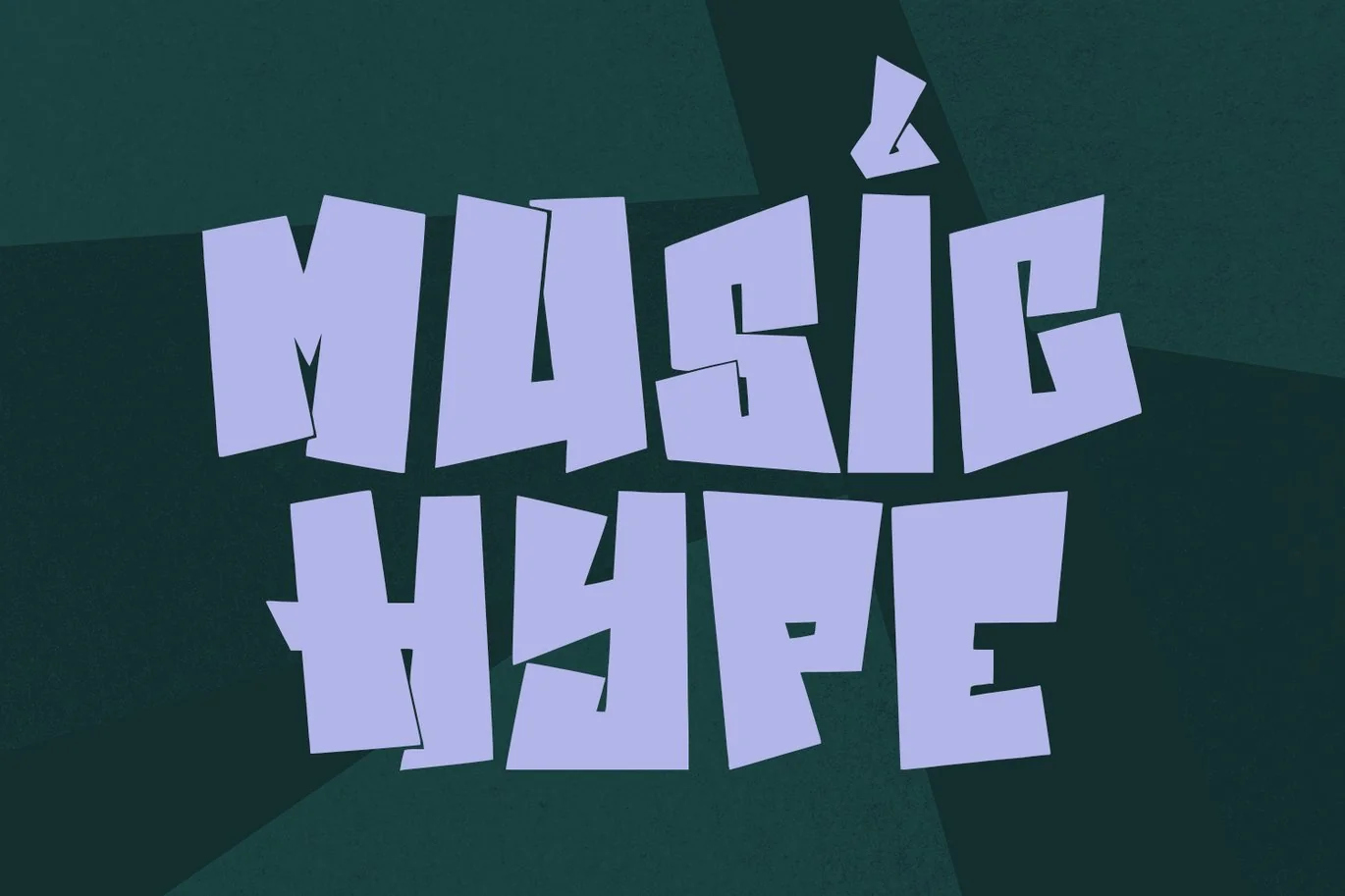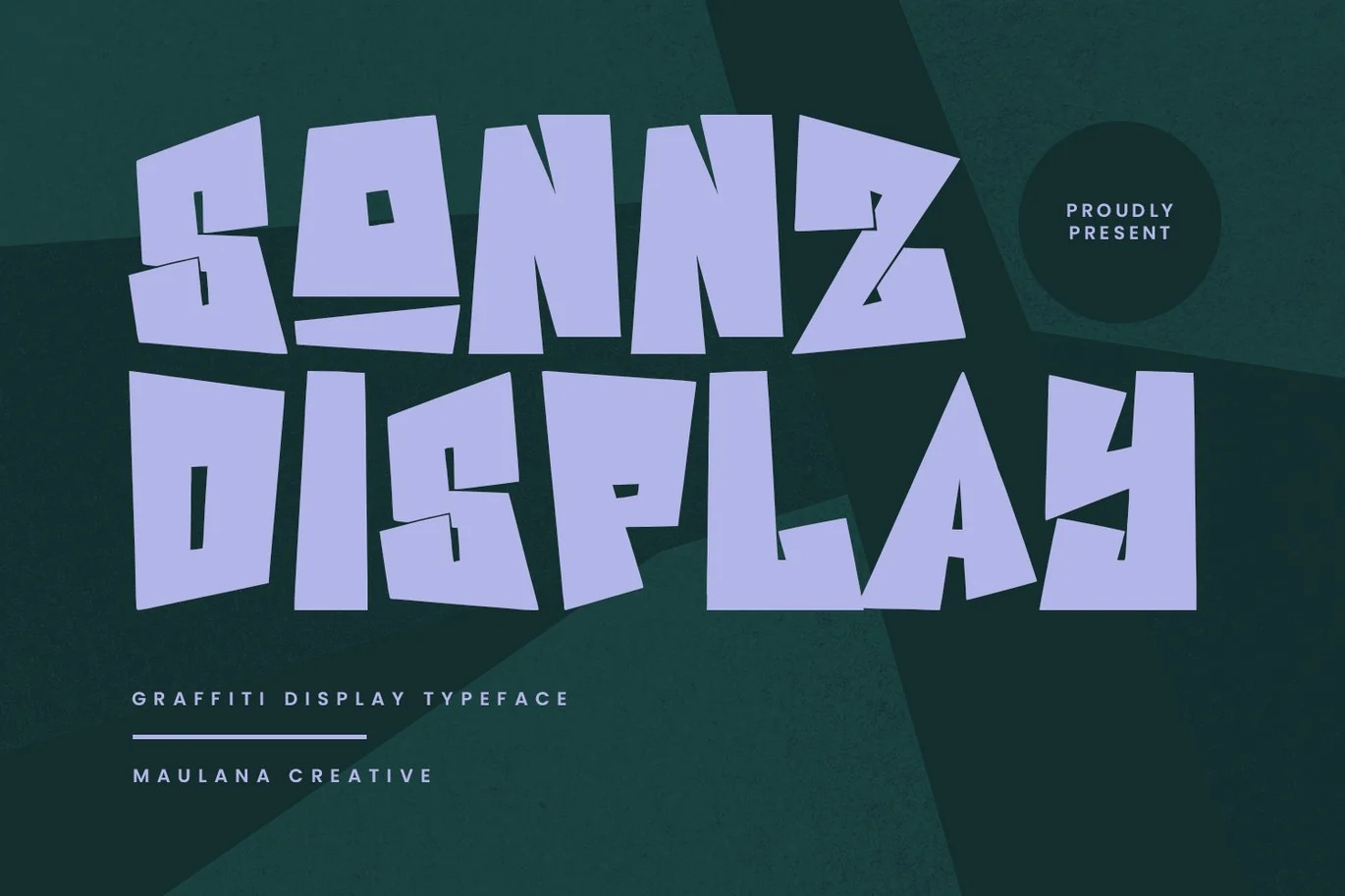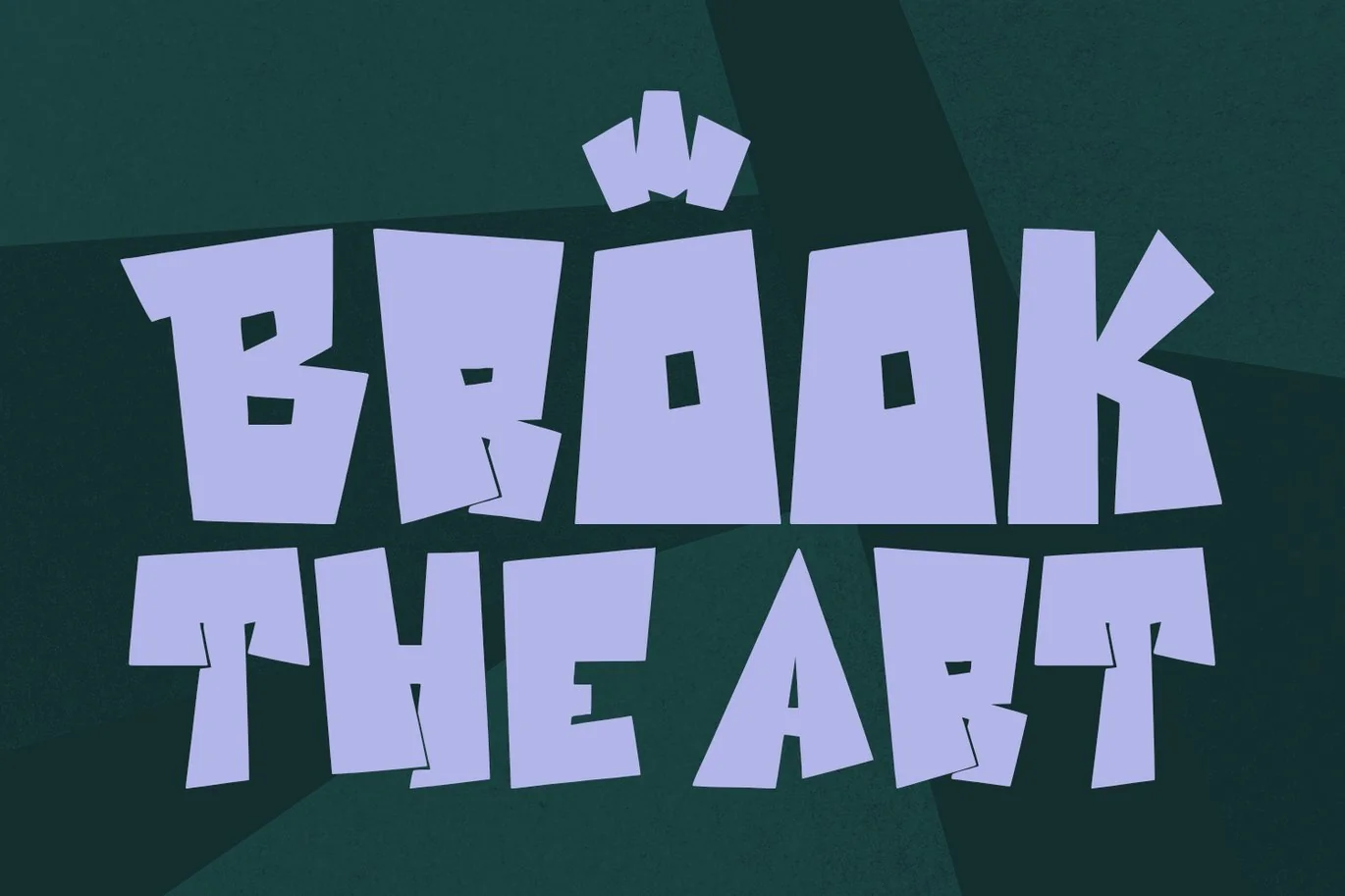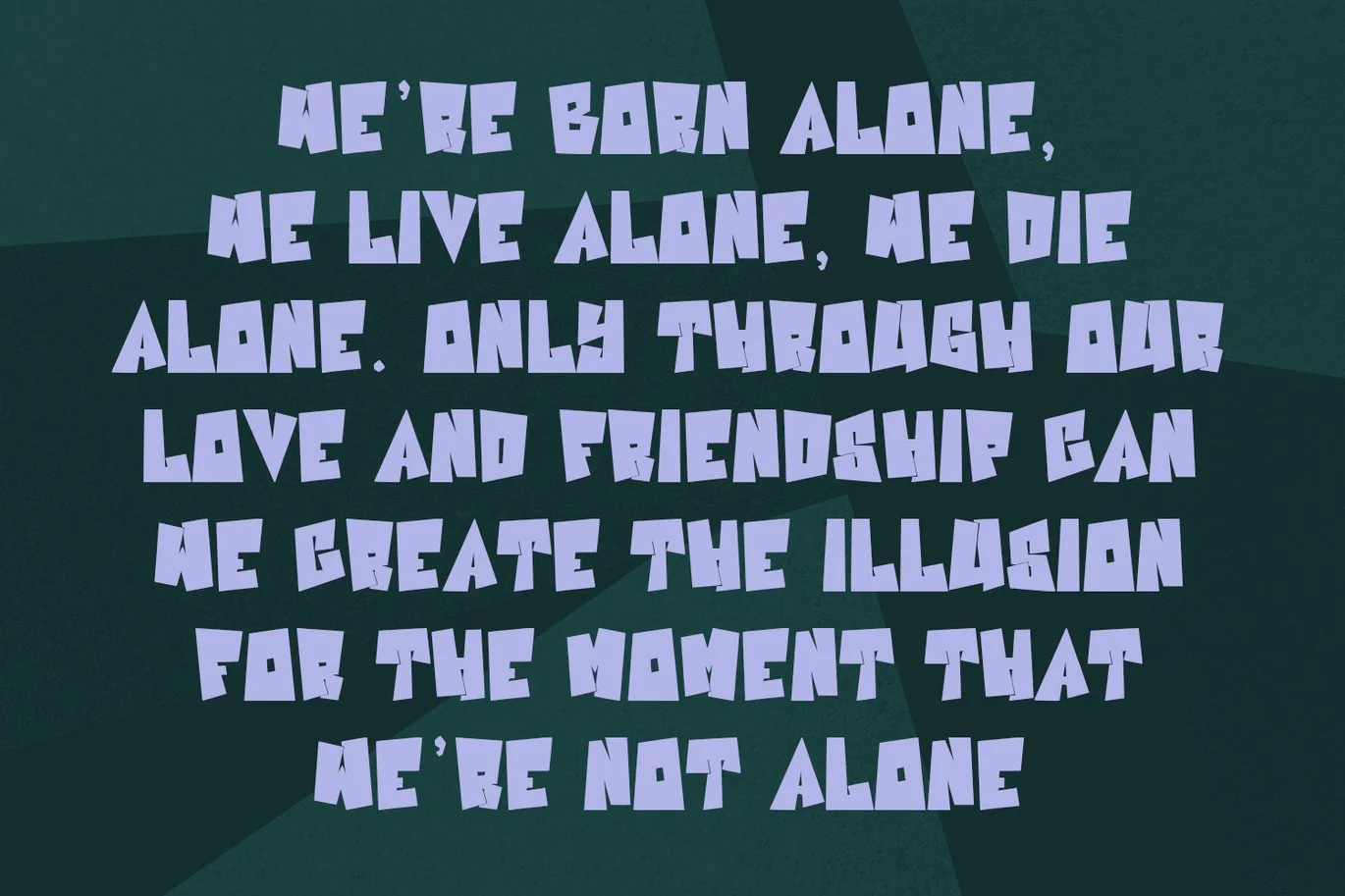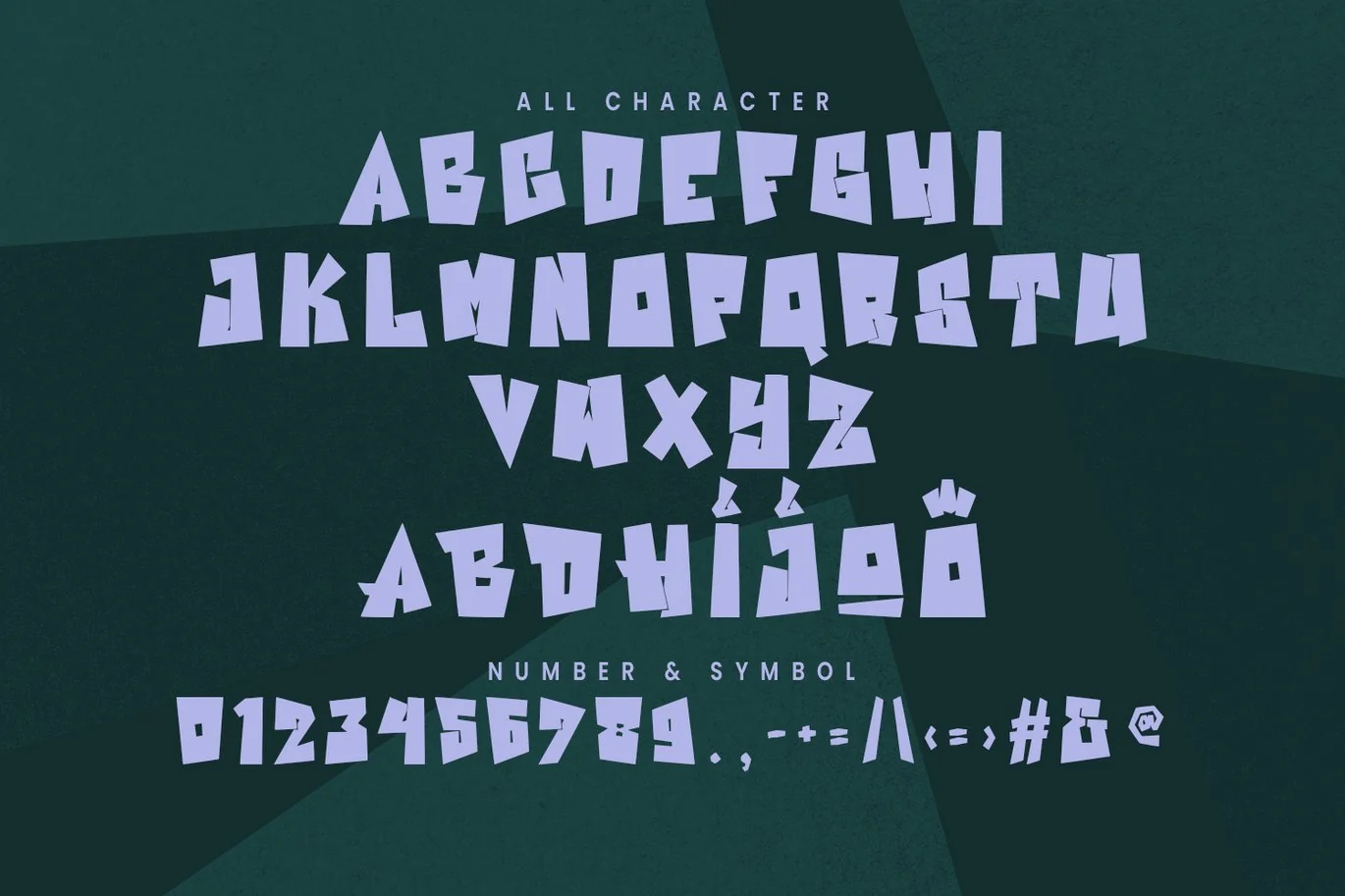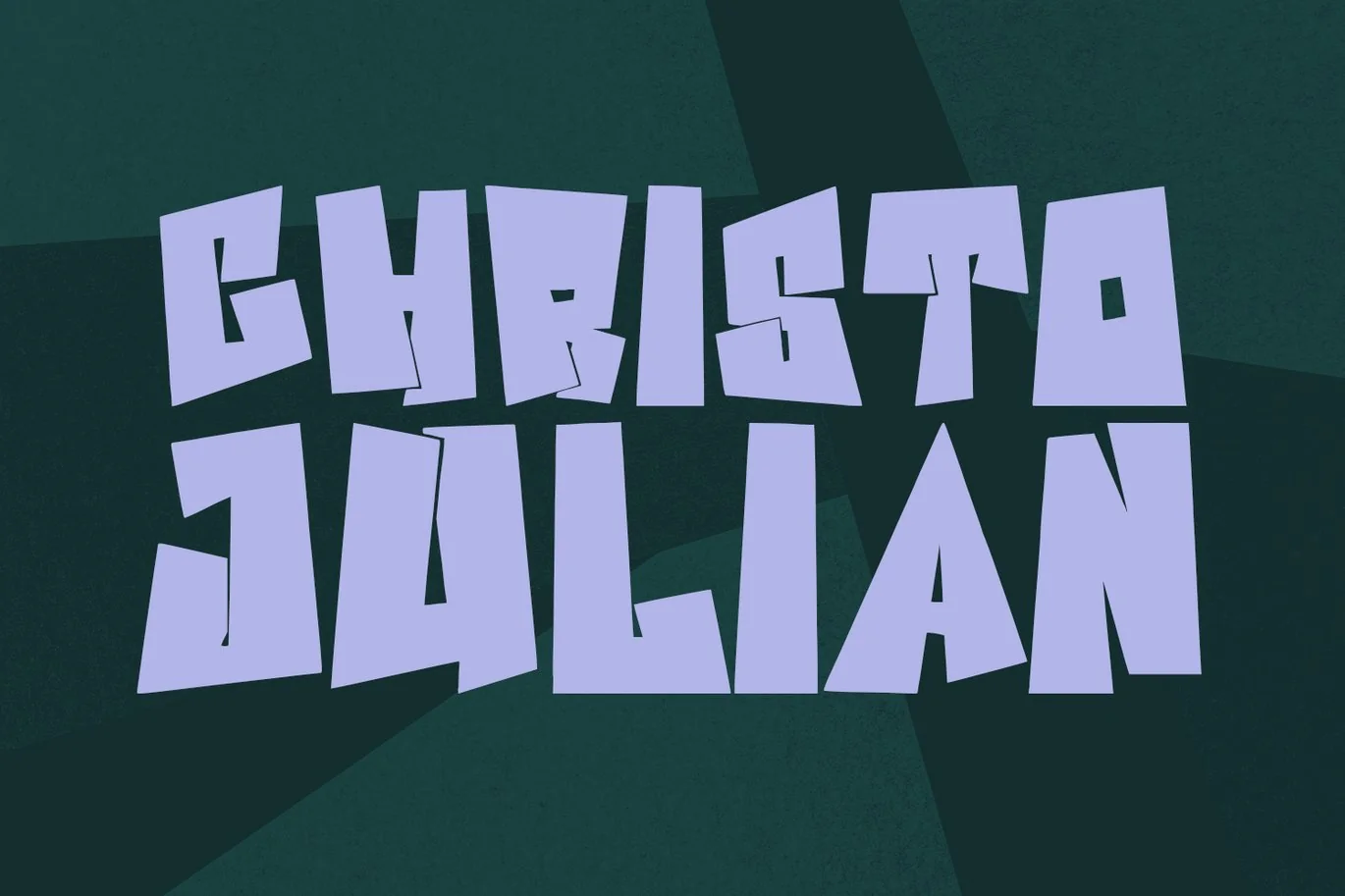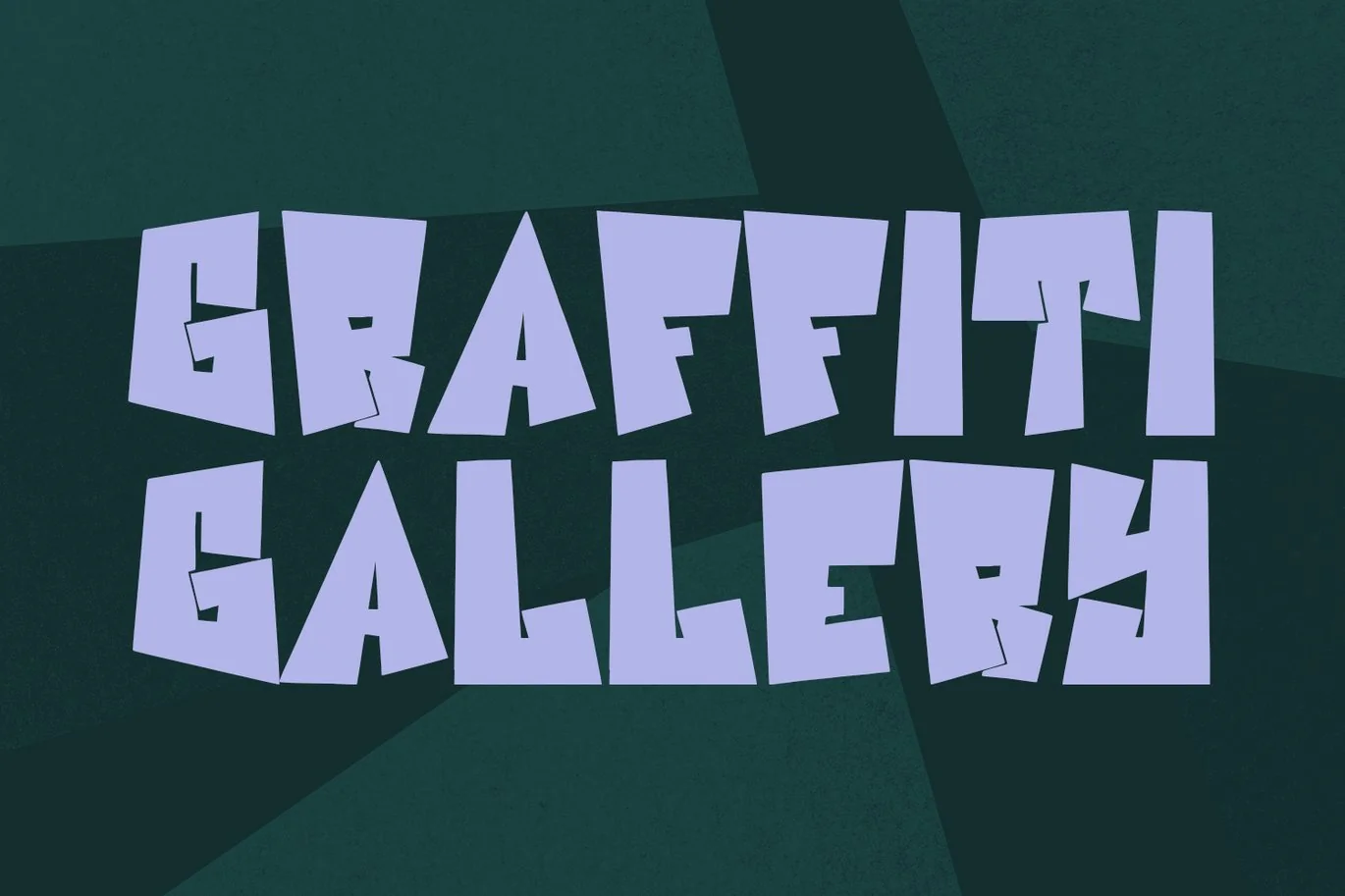
Sonnz Graffiti Display Typeface
Sonnz graffiti display typeface. Bold stroke, fun character with a bit of ligatures and alternates. To give you an extra creative work. Sonnz graffiti display typeface support multilingual more than 100+ language. This font is good for logo design, Social media, Movie Titles, Books Titles, a short text even a long text letter and good for your secondary text font with script or serif. Make a stunning work with Sonnz graffiti display typeface.